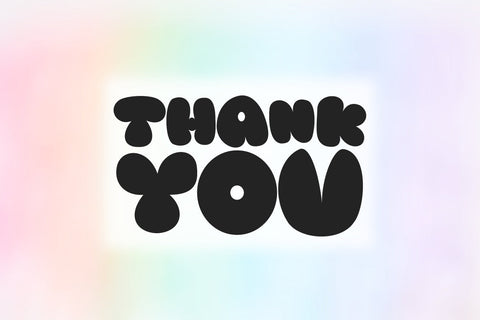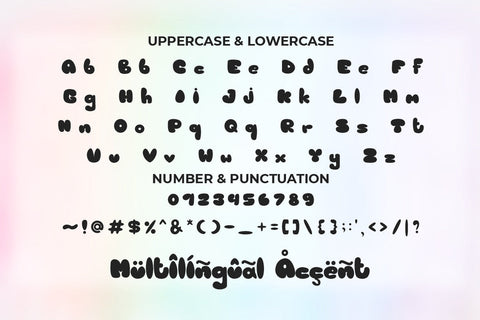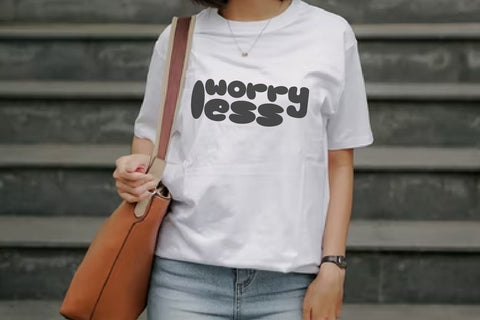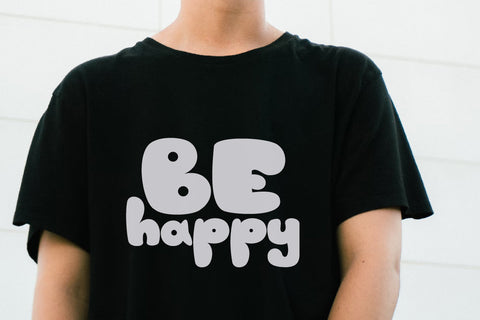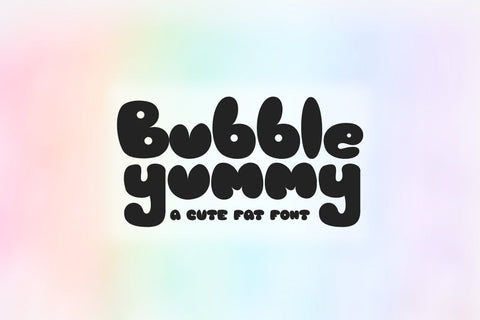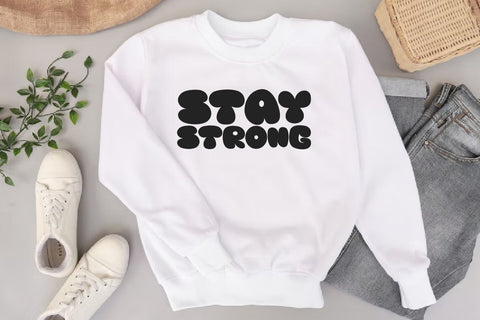
Bubble Yummy - A Cute Display Font
Bubble Yummy is a cute and fun chubby display font. This font can be used for various purposes such as t-shirts, mugs, sweaters, jackets, and many other printing products. This font is also suitable for Cricut products